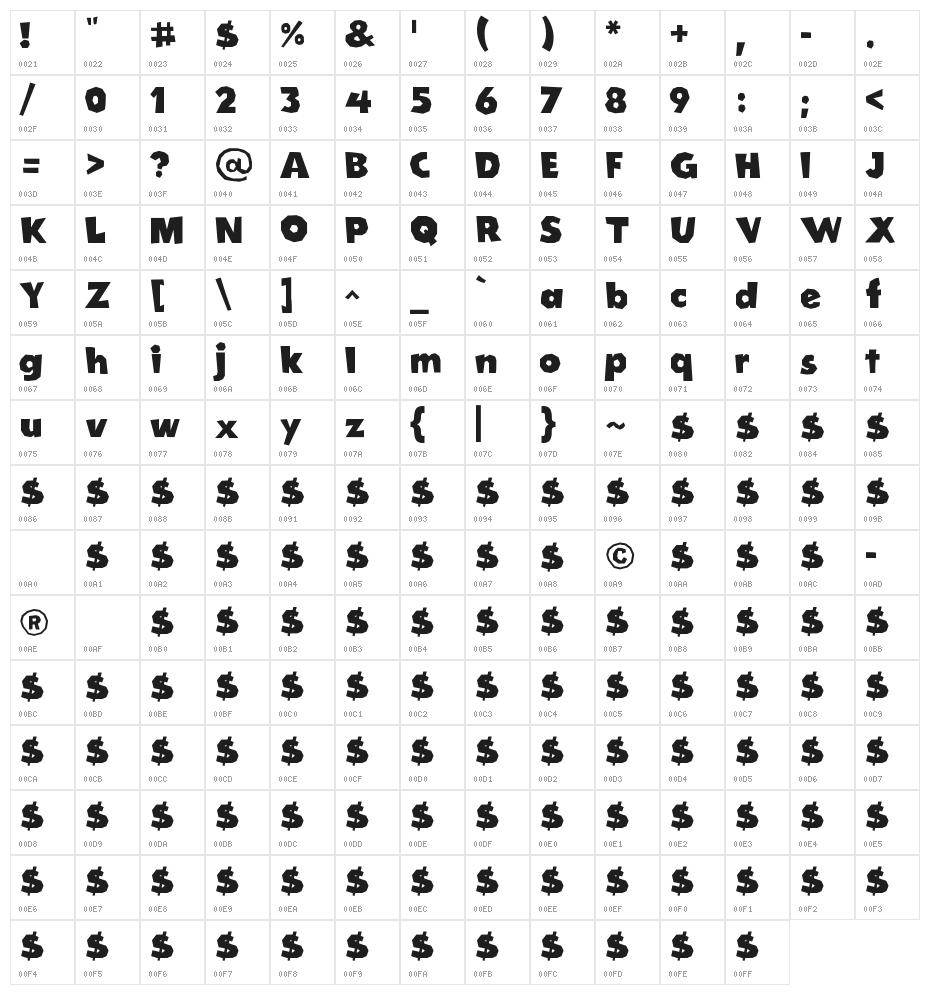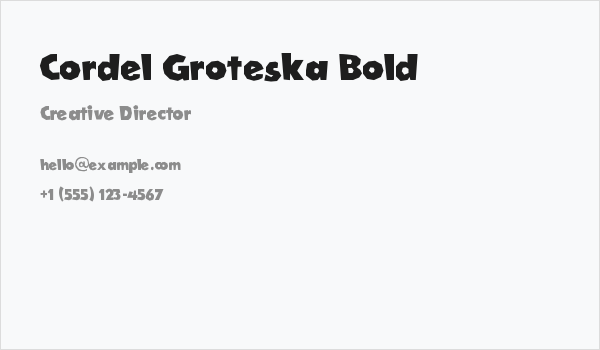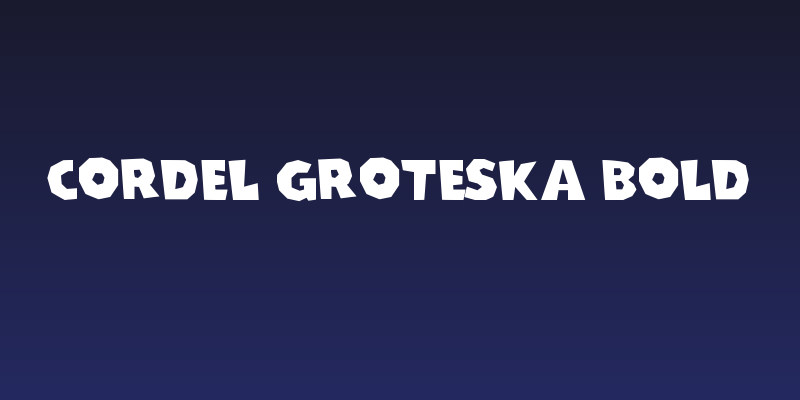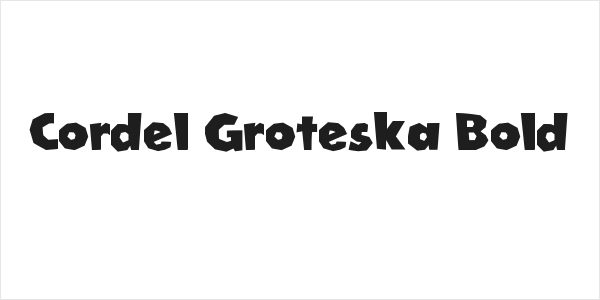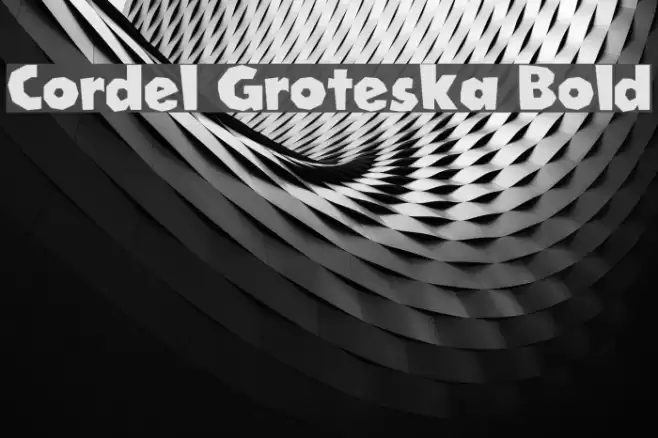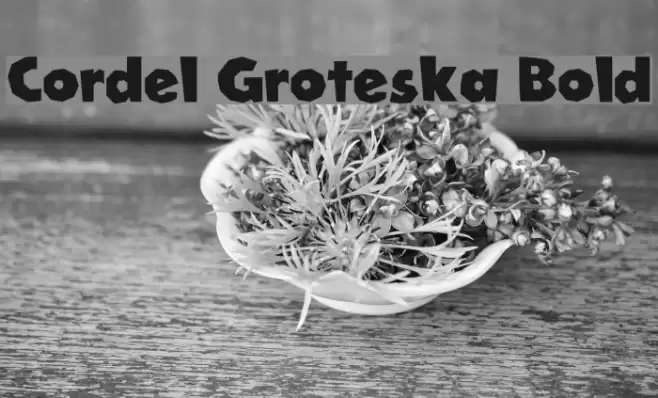
Cordel Groteska Bold Font
Cordel Groteska Bold Description
This font features bold, angular characters with a distinctly hand-crafted appearance. The uppercase letters are robust and commanding, while the lowercase letters maintain a consistent boldness, creating a cohesive look. The numbers are equally bold, with a playful yet strong presence. Special characters are designed to match the overall aesthetic, offering a unique and artistic flair. The font's uneven edges and irregular shapes contribute to its distinctive, eye-catching style, making it ideal for projects that require a bold and unconventional look.
| Proposed Projects | Ideal for posters, album covers, branding, and any project seeking a bold, artistic touch. |